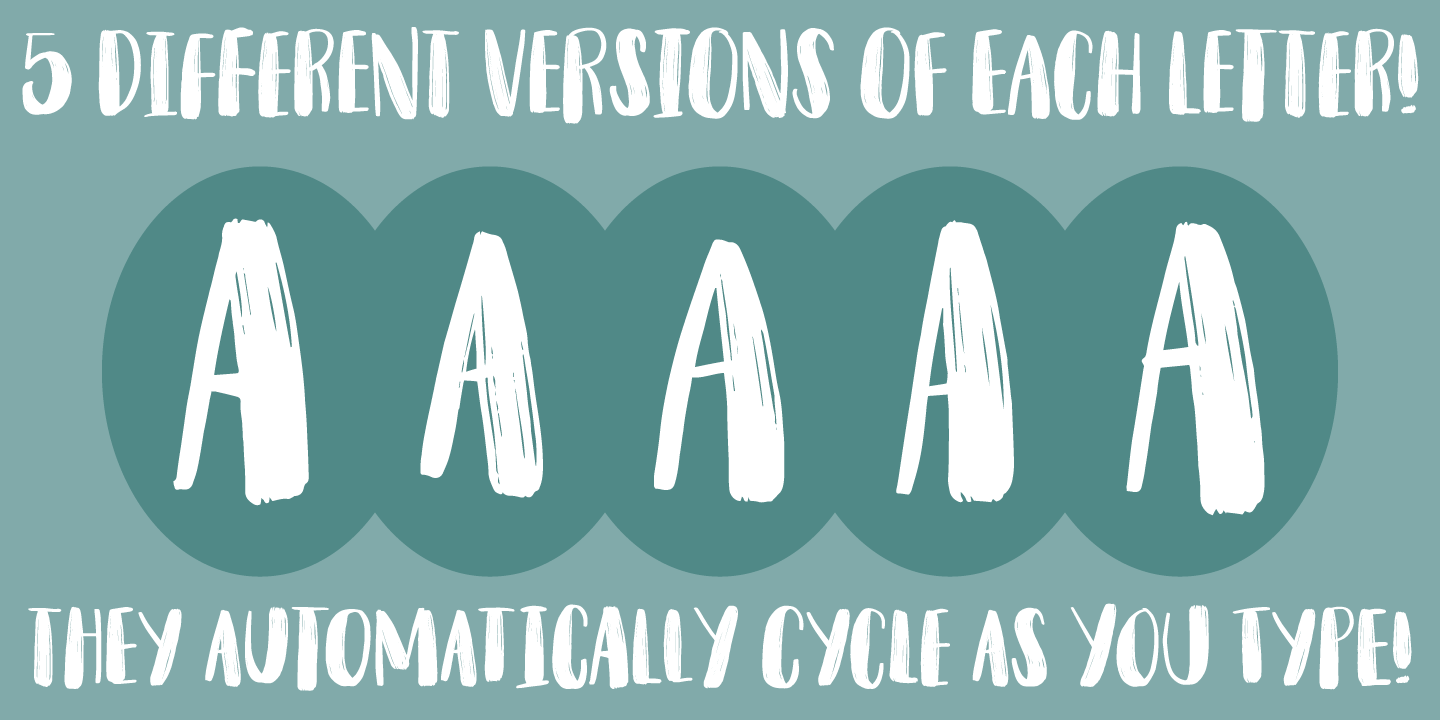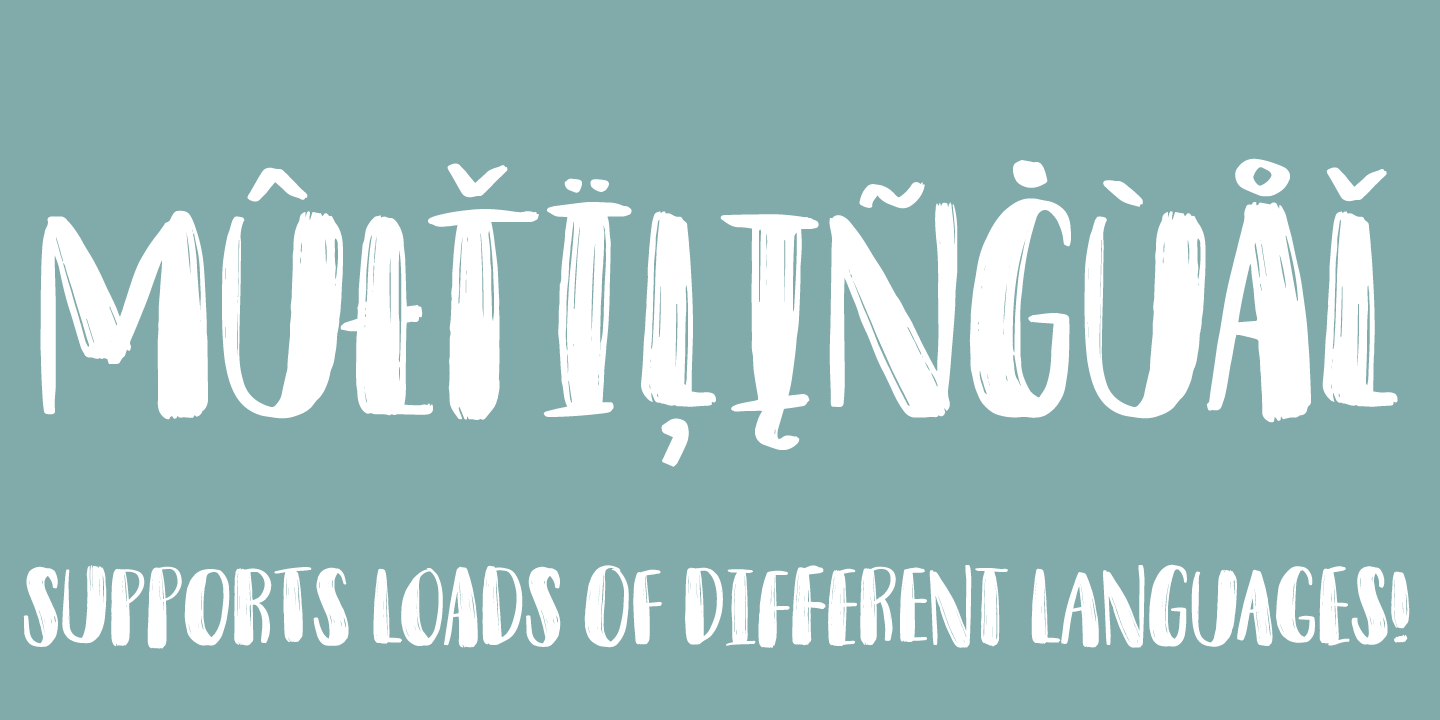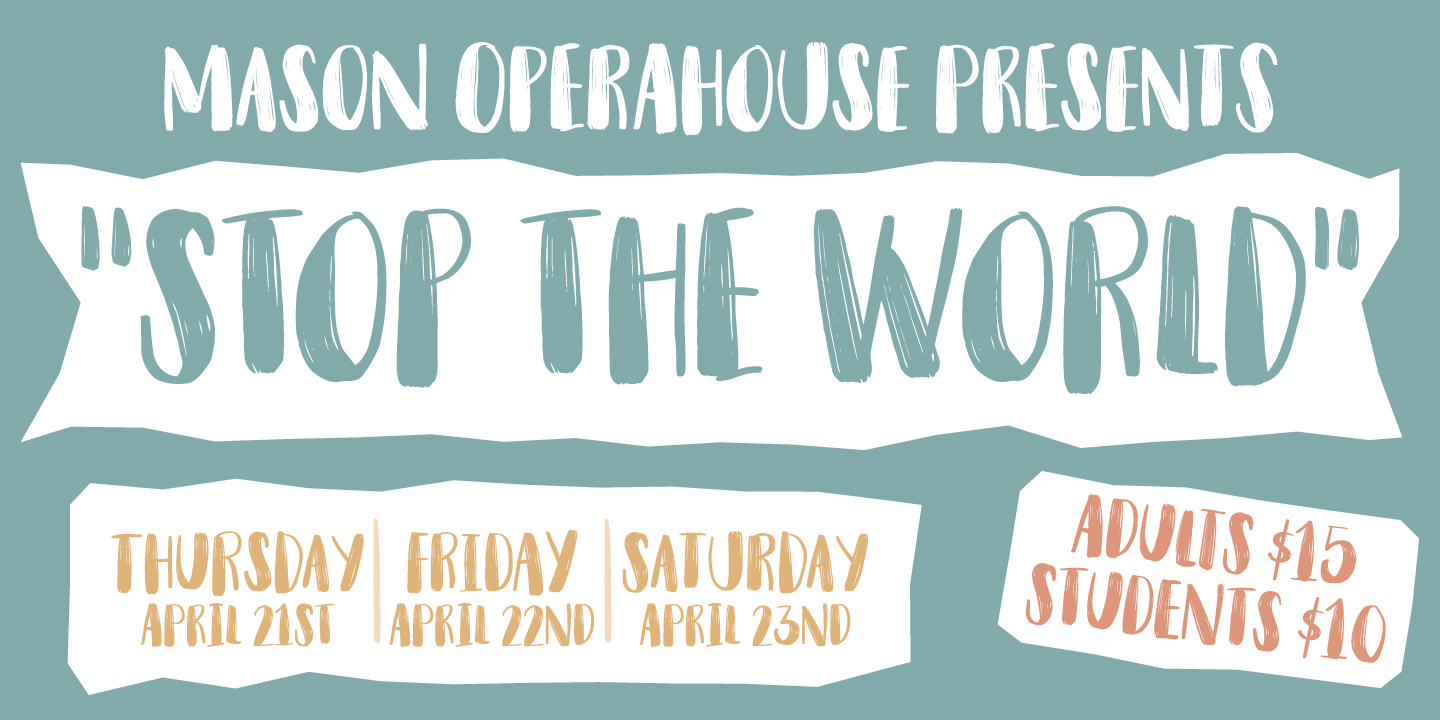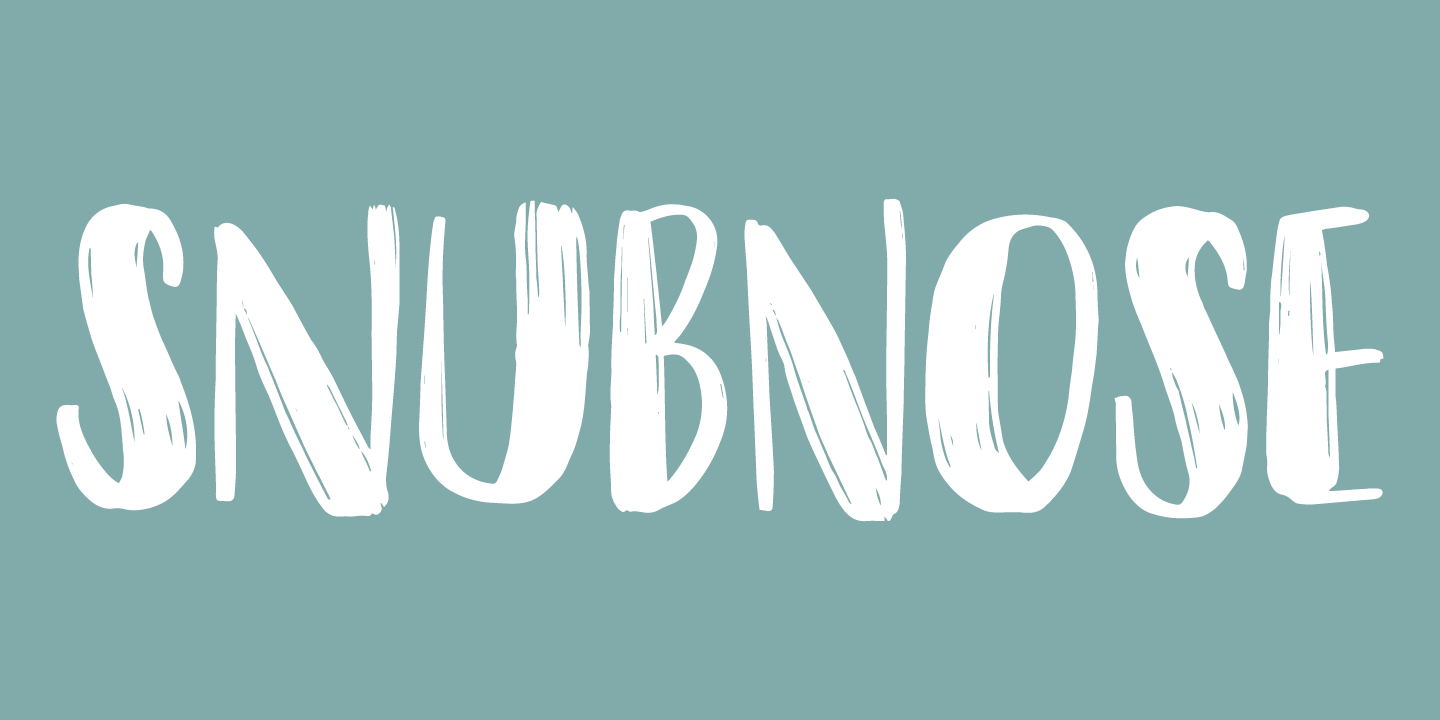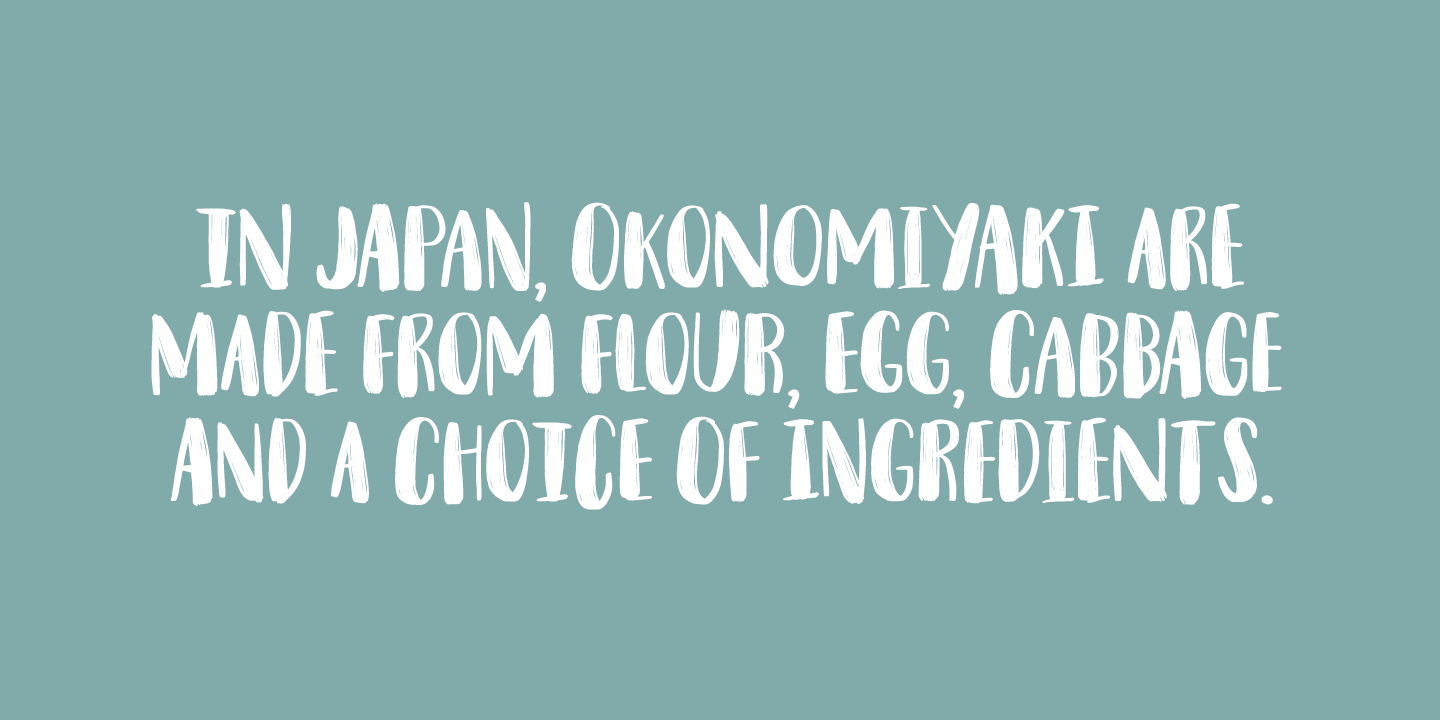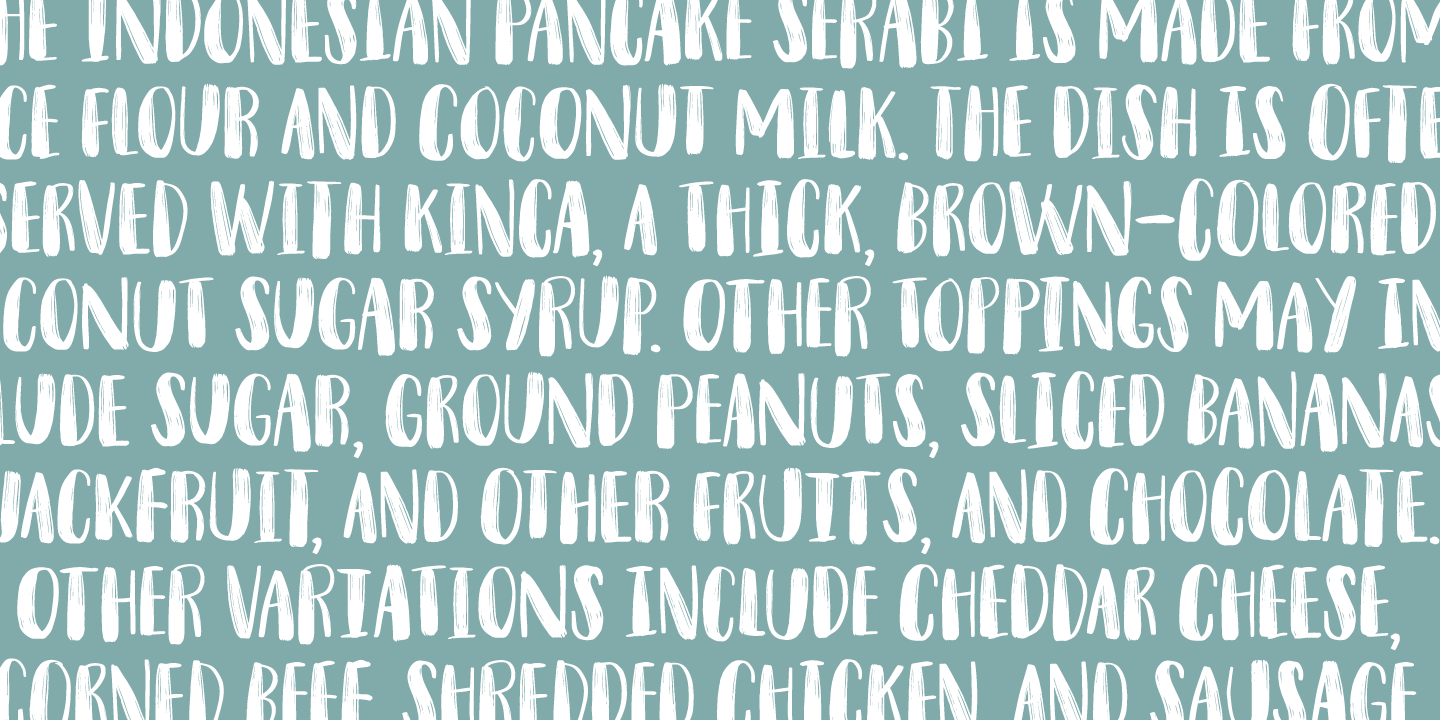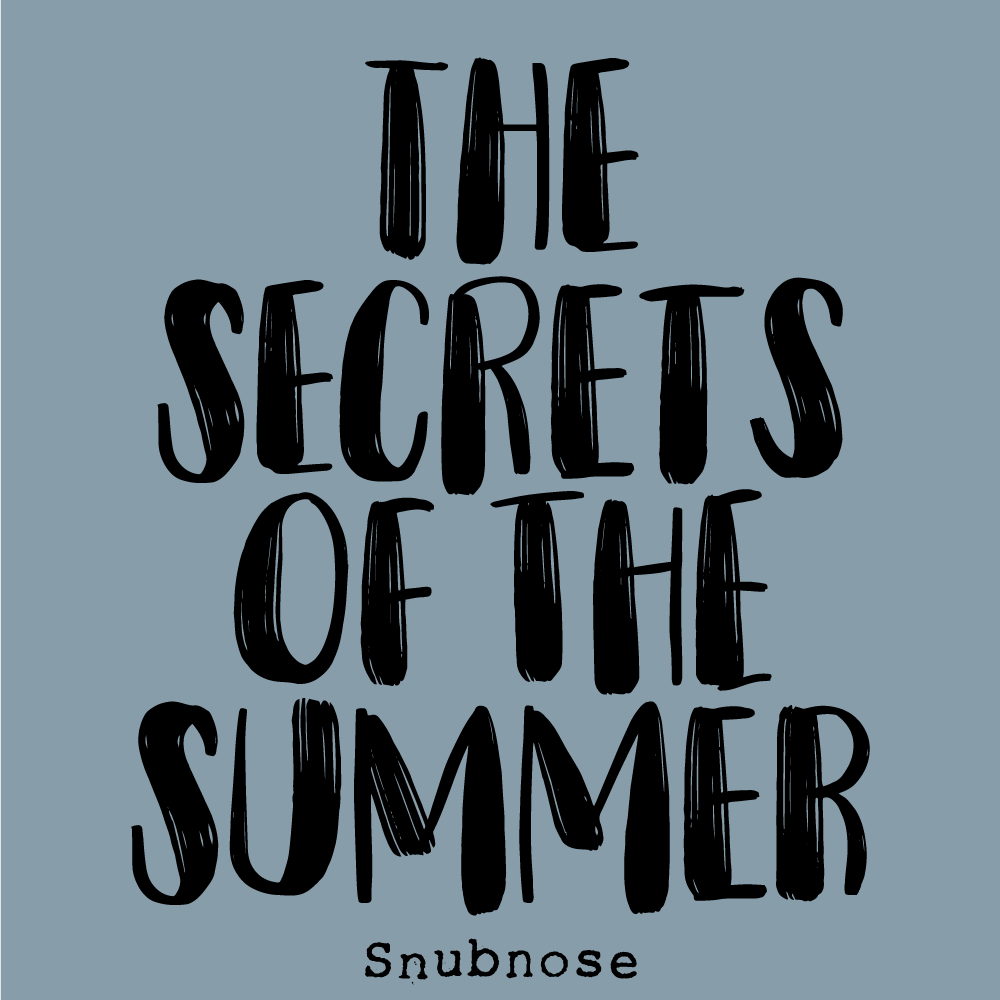
Snubnose
ALL CAPS font with lovely traces after the brushstrokes.
With multiple language support and contextual alternates, which makes sure that your text varies between 5 different versions of each letter - and they cycle automatically!